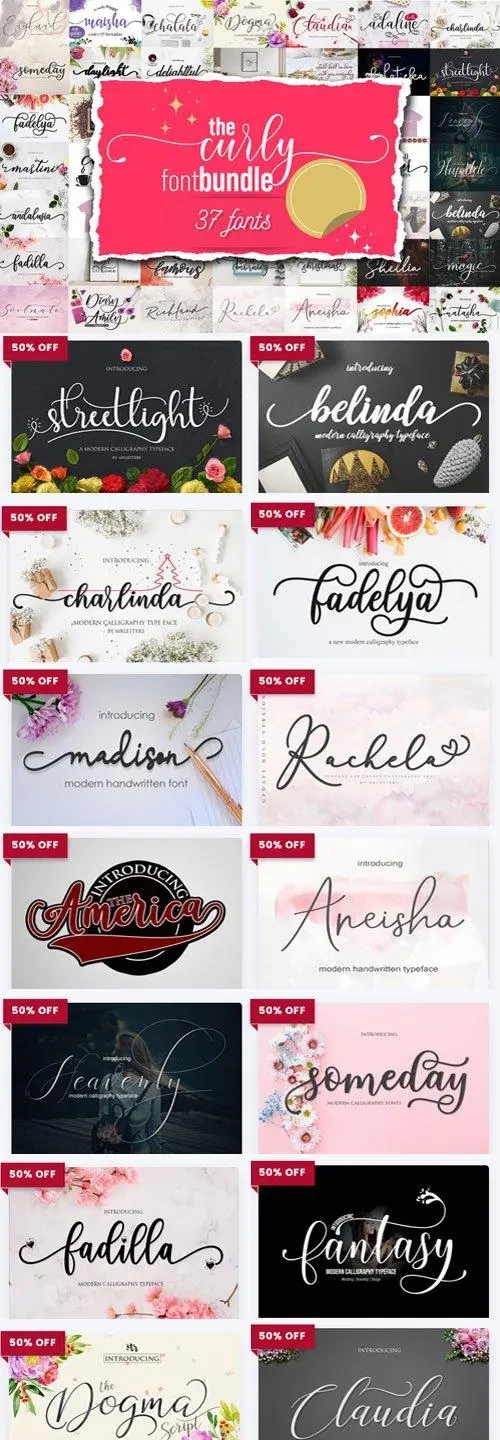
The Curly Font Bundle – 37 Premium Fonts
The Curly Font Bundle offers a delightful collection of 37 premium fonts, perfect for adding a touch of whimsy to your projects. Each font features unique curly designs that can bring life to your branding, logos, and print materials.
• 37 unique curly fonts
• Variety of styles and weights
• High-quality typography suitable for various applications
• Styles: Script, Display, and more